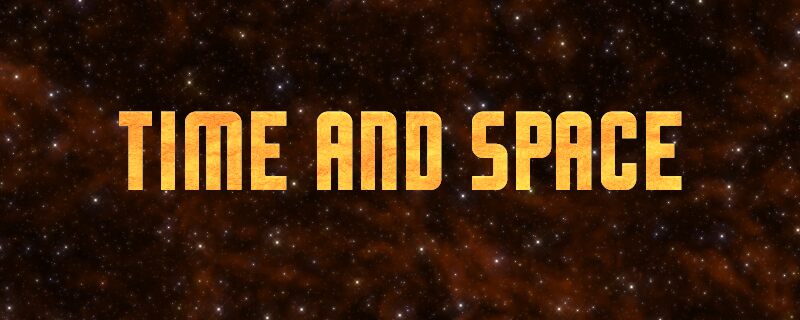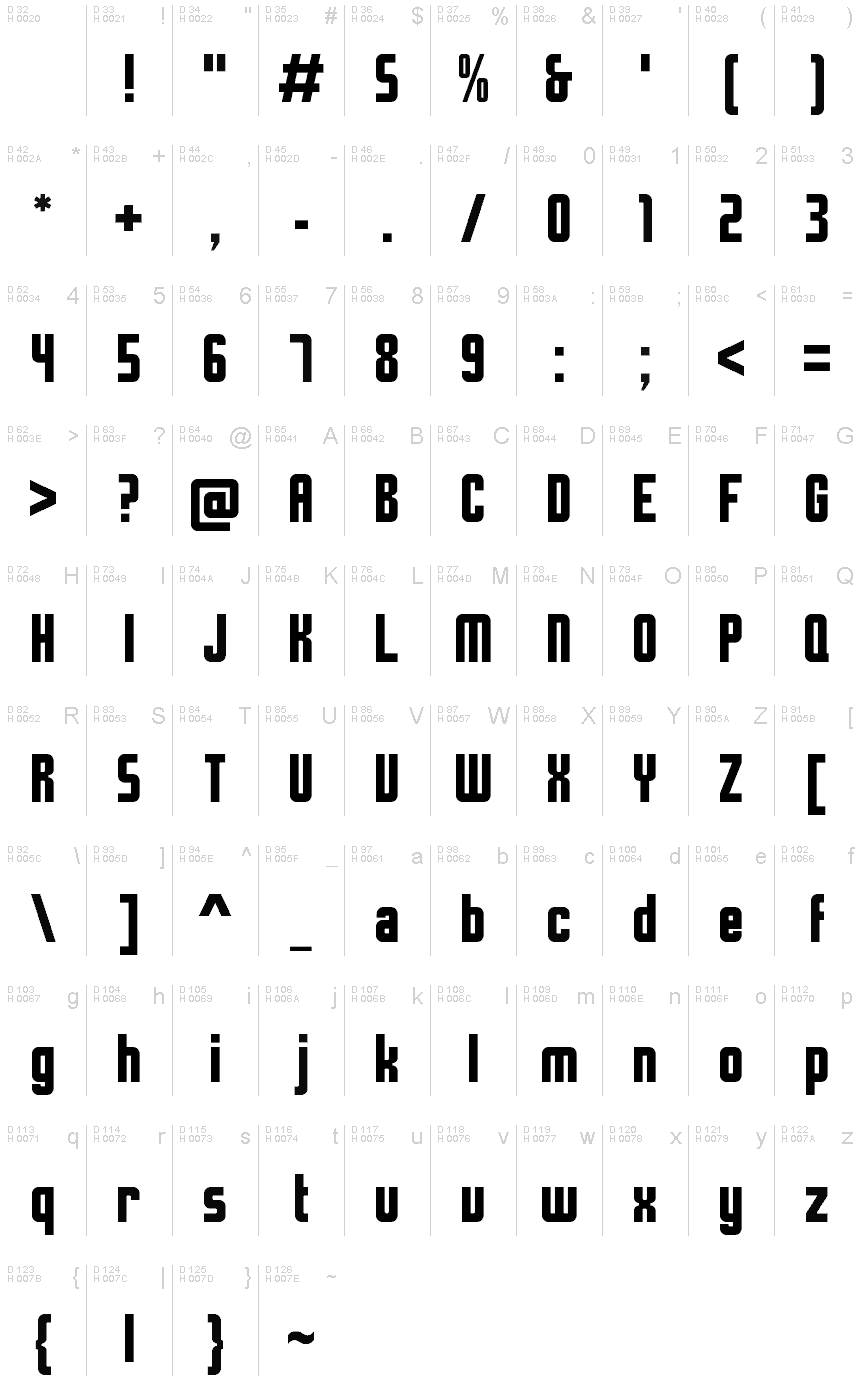
Time and Space Regular
A typeface inspired by the 2014 logo for the TV-show 'Doctor Who'.
Includes lowercase letters and supports Latin-based European languages.